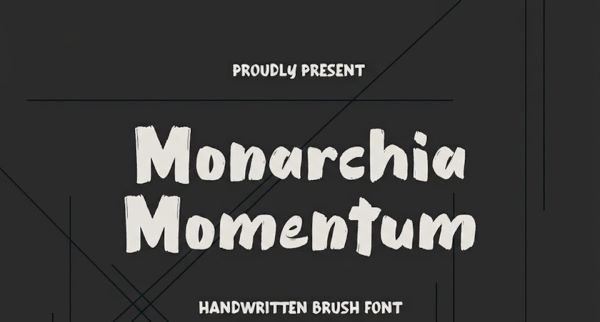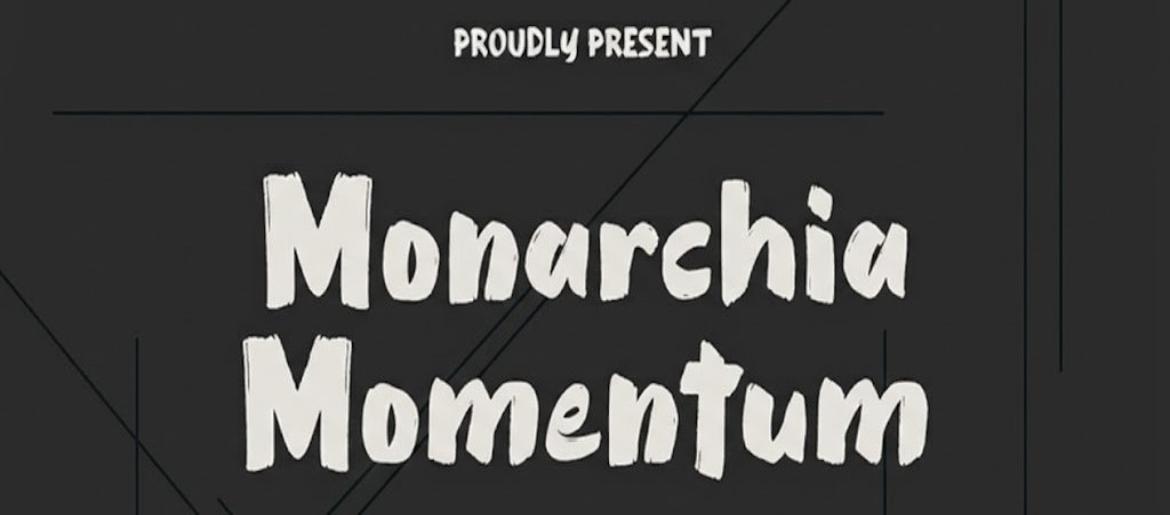
Monarchia Momentum Font
Monarchia Momentum by Fikryal Studio is a brush script that earns its regal name — the letterforms carry a stately authority that sets it apart from the typical casual brush offering. There’s genuine weight and forward drive in each stroke, a sense that the letters are moving with purpose rather than simply flowing. That combination of grandeur and momentum makes it well suited to bold fashion branding, high-impact editorial headlines, luxury packaging, and poster design where a brush script needs to feel commanding rather than carefree. Free for personal use.